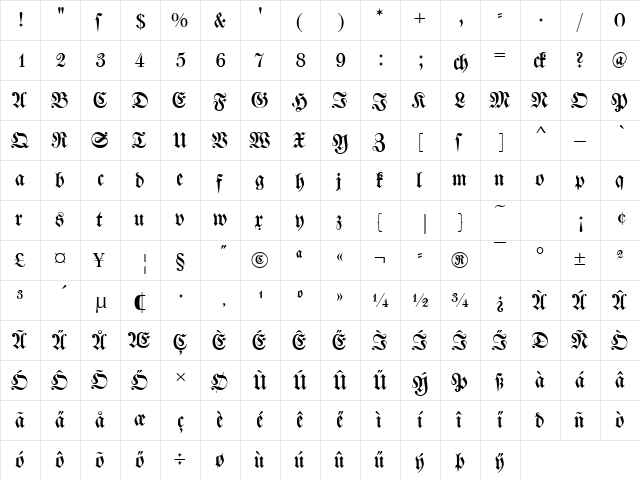
DS Walbaumfraktur Regular
| Foundry | Typographer Mediengestaltung |
| Designer | Dieter Steffmann |
Design Context for DS Walbaumfraktur Typeface
DS Walbaumfraktur channels the dramatic heritage of Fraktur and Gothic scripts, bringing a sense of historical gravitas to any design.
A natural fit for music packaging, gothic editorial design, and any project that needs historical weight.
Font Pairing: Pair with a clean neutral sans-serif for body copy to let DS Walbaumfraktur's character lead without overwhelming the composition.
Pro Tip: Reserve DS Walbaumfraktur for display and logo use — pair it with a clean sans-serif for body copy to prevent the composition from feeling oppressive.